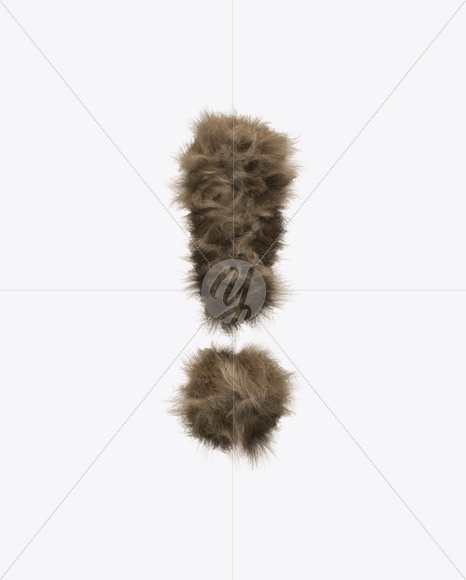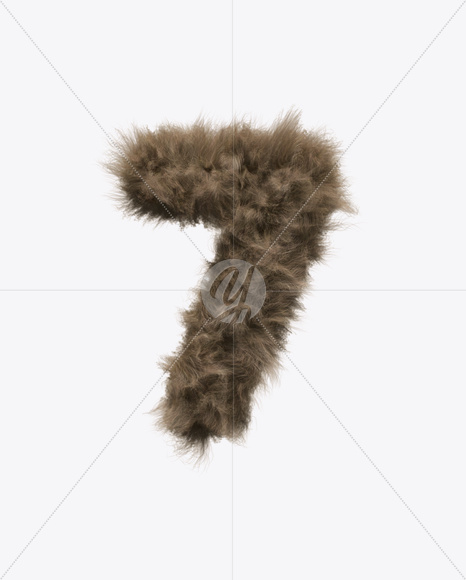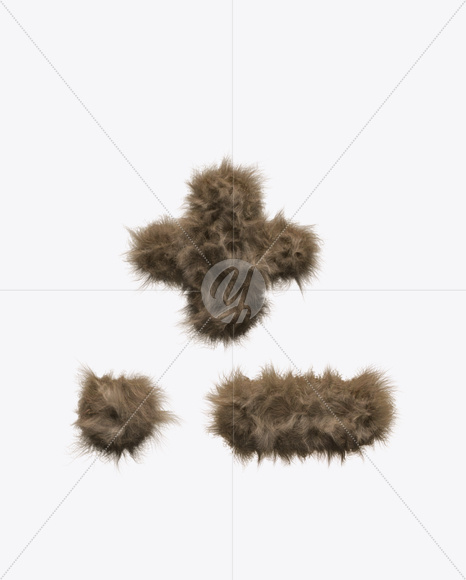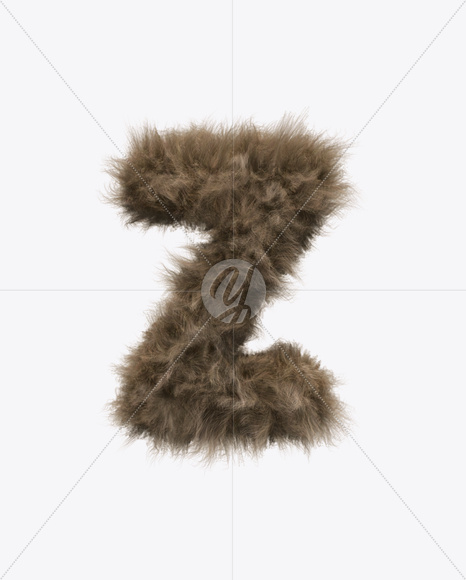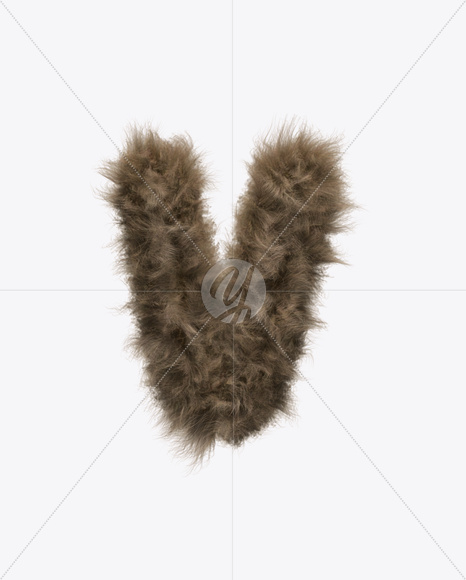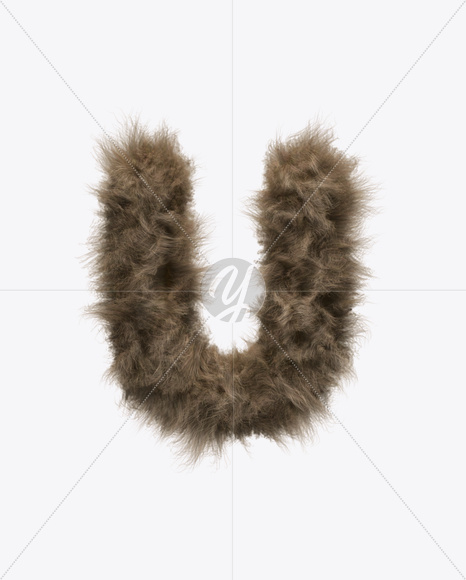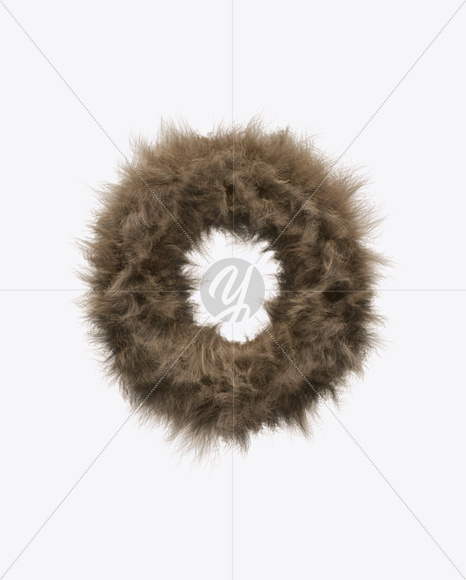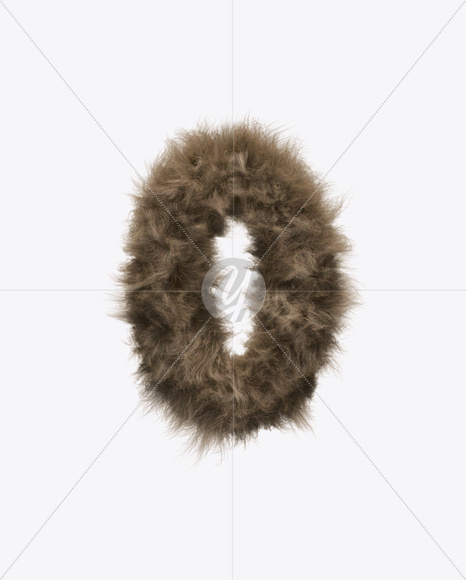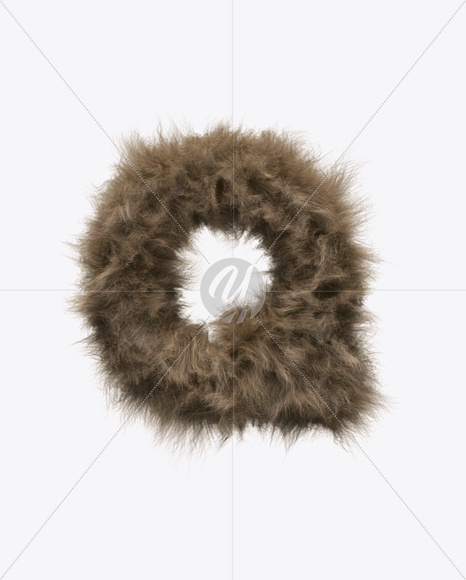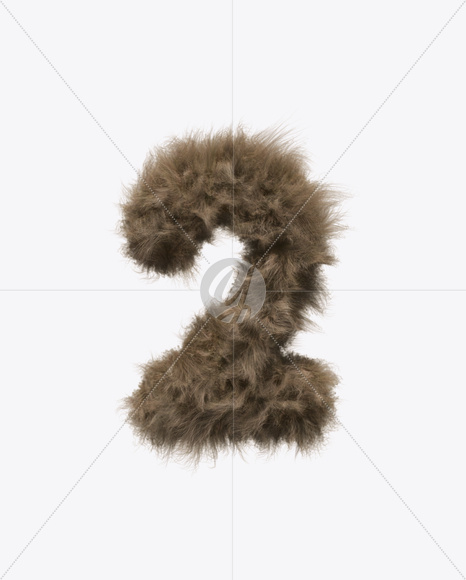
Everything in life I share, except of course my teddy bear.
You thought that Monsterhair font was cute? Well meet the Teddy Bear font- all warm and soft and ready to cuddle. We have to assure you that no Teddies were harmed making this font. We just went to Teddy factory and bought some Teddy fur not the whole Teddy and then ribbed it into pieces- no, no! You can use this oh-so-cute Teddy Bear font if you have something to say to children.